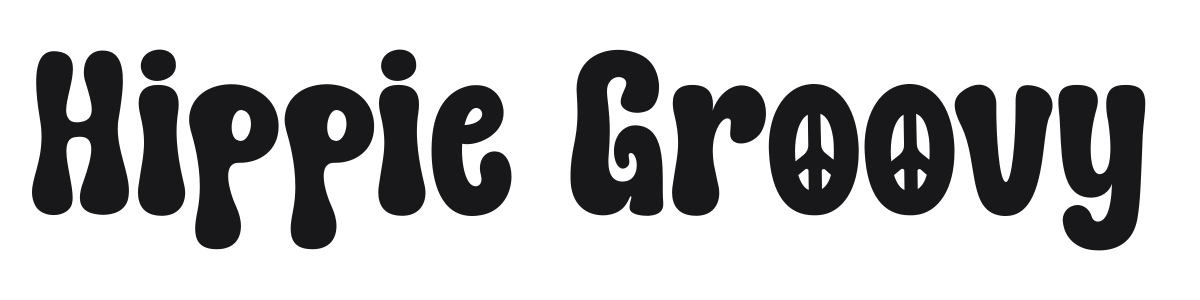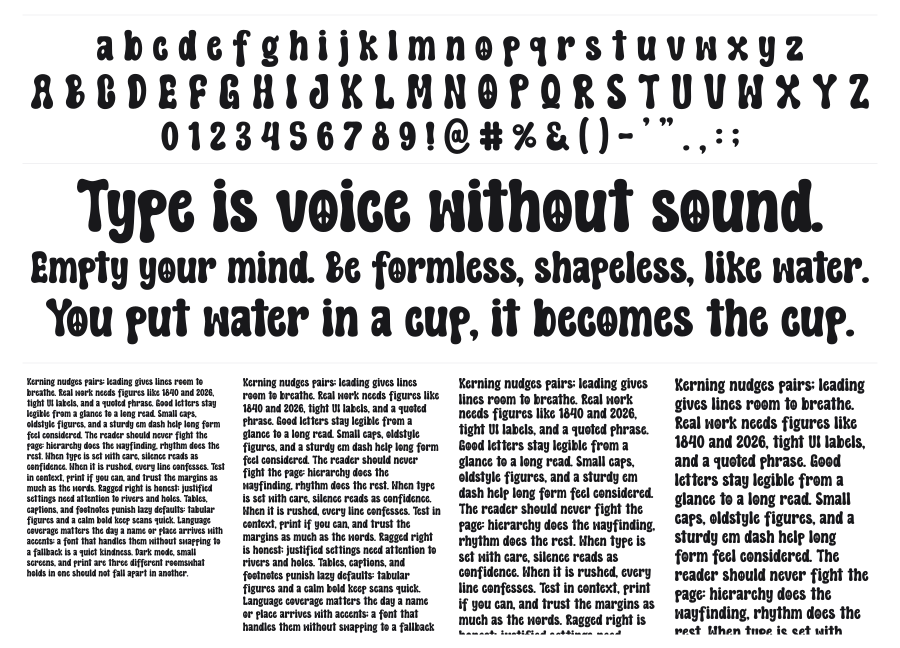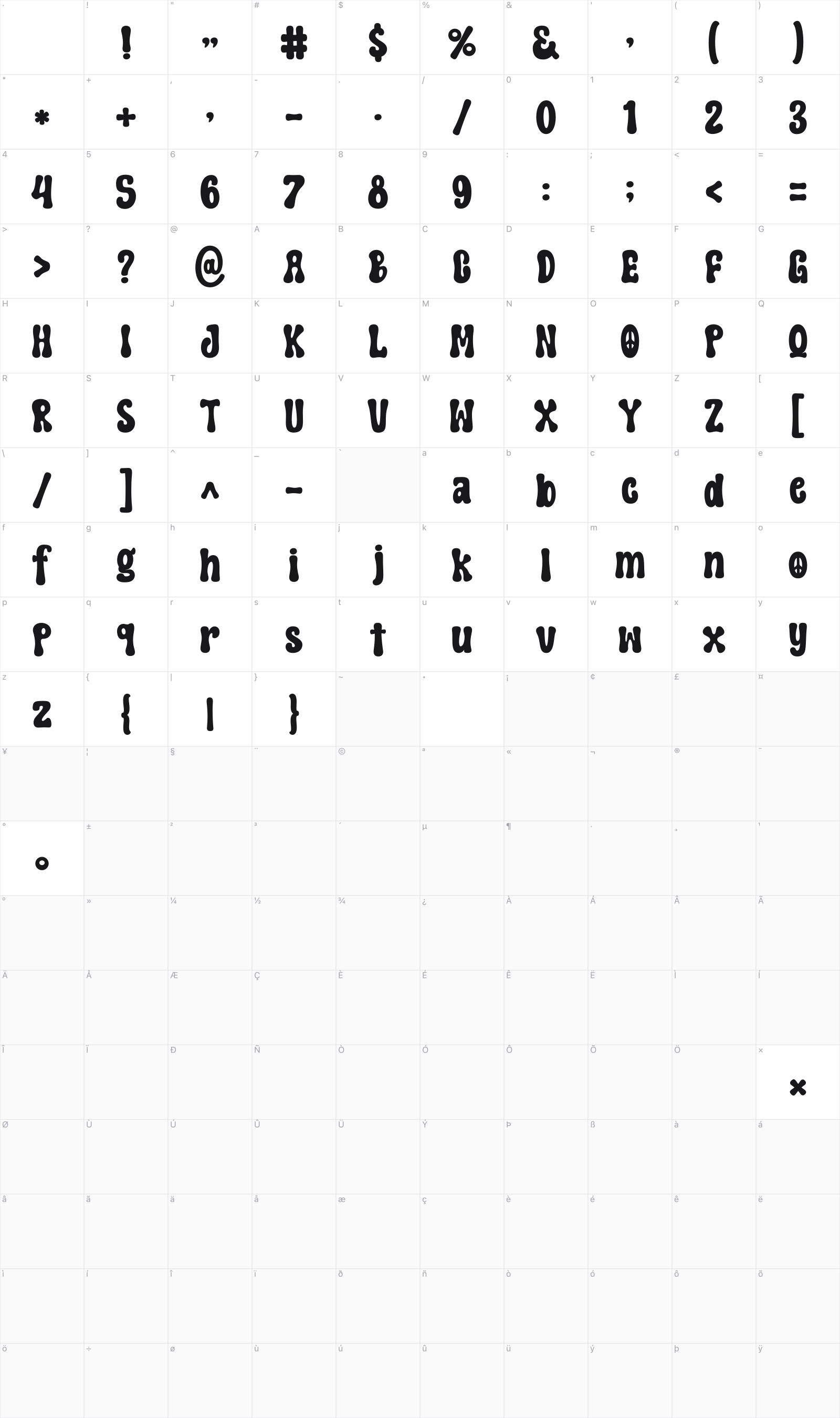
Hippie Groovy
by Hoperative
Hippie Groovy is a bold, retro display font dripping with 1960s–70s counterculture energy. Heavy rounded serifs, thick inflated strokes, and a peace symbol tucked into the design make its era unmistakable. It belongs on festival posters, vintage-inspired packaging, and anything that needs a little flower power.